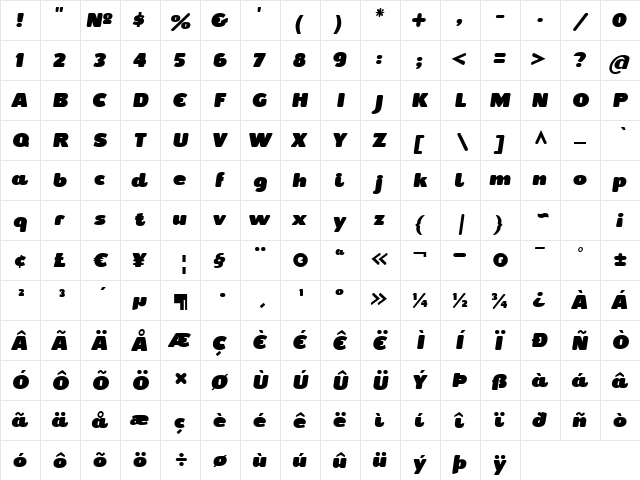
CepoItalic Regular
Design Context for CepoItalic Typeface
CepoItalic takes a measured approach to typography — its balanced proportions and neutral character make it a reliable workhorse for both digital and print work. The slanted form adds forward momentum and visual energy.
Pro Tip: Use CepoItalic for emphasis, pull quotes, and subheadings where its slanted energy can add rhythm to the layout.